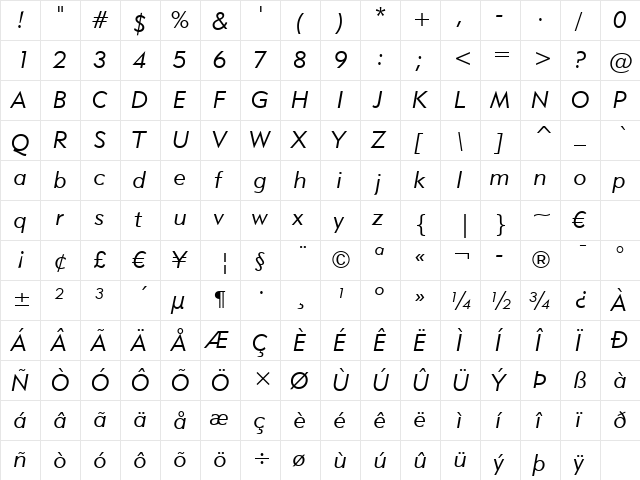
Geometr415 Lt BT Lite Italic Font Preview
Geometr415 Lt BT Lite Italic
Design Context for Geometr415 Lt BT Typeface
Geometr415 Lt BT offers clean, dependable letterforms without strong stylistic allegiance, making it a practical choice for designers who need flexibility. The slanted form adds forward momentum and visual energy. The delicate stroke weight brings airiness and refinement to layouts.
Pro Tip: Use Geometr415 Lt BT for emphasis, pull quotes, and subheadings where its slanted energy can add rhythm to the layout.